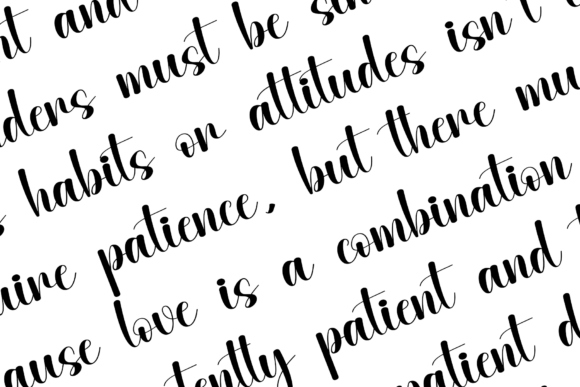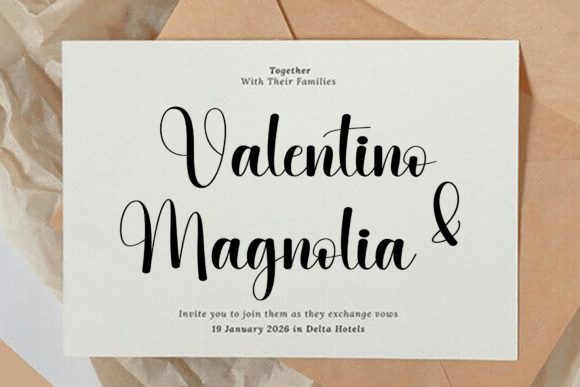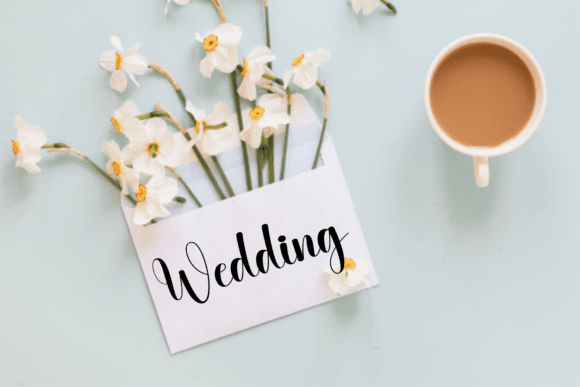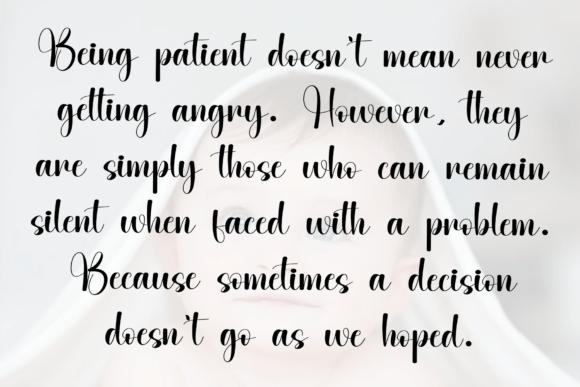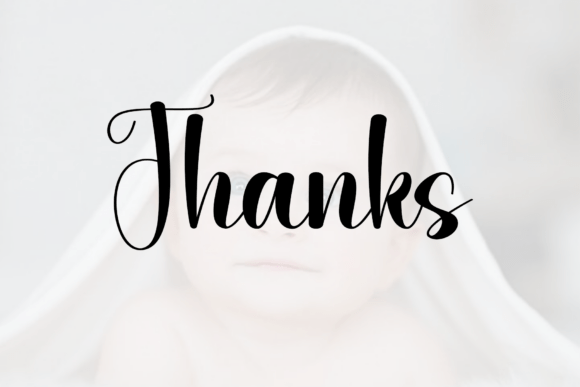
Babyface Font: The Sweetest Script Font for Your Delicate Designs
Are you looking for a font that exudes warmth, tenderness, and maternal love? Look no further than the Babyface font, a beautiful, feminine script that is perfect for conveying gentle emotions. In this article, we’ll dive into the world of Babyface font, exploring its characteristics, uses, and benefits for designers and crafters.
What is Babyface Font?
Babyface is an exquisitely sweet and delicate script font, designed to evoke feelings of warmth, innocence, and care. This font is characterized by its fine, high-contrast strokes and exaggerated, elegant loops, especially on the ascenders and descenders. The script flows with a smooth, continuous rhythm, suggesting a gentle touch that is sure to capture the hearts of your audience.
Key Features of Babyface Font
- Fine, high-contrast strokes: The font features delicate strokes that create a sense of elegance and sophistication.
- Exaggerated, elegant loops: The loops on the ascenders and descenders are designed to add a touch of luxury and refinement to your designs.
- Smooth, continuous rhythm: The script flows smoothly, creating a sense of continuity and harmony.
Uses of Babyface Font
The Babyface font is specifically designed for use in designs that focus on early childhood, maternity, or gentle, loving themes. Some popular uses of this font include:
- Baby shower invitations: Create beautiful, heartfelt invitations that set the tone for a lovely celebration.
- Maternity photography watermarks: Add a touch of elegance and sophistication to your maternity photos with this beautiful font.
- Children’s apparel branding: Use Babyface font to create adorable and eye-catching branding for your children’s clothing line.
- Product design: This font is perfect for designing products that focus on early childhood, such as baby blankets, nursery decor, and kids’ accessories.
Benefits of Using Babyface Font
The Babyface font offers several benefits for designers and crafters, including:
- Luxurious, handcrafted quality: The font has a beautiful, handcrafted feel that adds a touch of luxury to your designs.
- Versatile: The Babyface font can be used in a variety of designs, from digital projects to print materials.
- Emotional connection: The font’s gentle, loving theme helps create an emotional connection with your audience, making your designs more relatable and engaging.
Tips for Using Babyface Font
To get the most out of the Babyface font, here are a few tips to keep in mind:
- Pair with complementary fonts: Combine Babyface font with complementary fonts to create a beautiful, harmonious design.
- Use in moderation: While the font is beautiful, it’s best to use it in moderation to avoid overwhelming your design.
- Experiment with colors and textures: Play around with different colors and textures to add depth and interest to your design.
In conclusion, the Babyface font is a beautiful, feminine script that is perfect for designers and crafters looking to create delicate, loving designs. With its fine, high-contrast strokes, exaggerated loops, and smooth rhythm, this font is sure to capture the hearts of your audience. Whether you’re designing baby shower invitations, maternity photography watermarks, or children’s apparel branding, the Babyface font is the quintessential choice for your project.